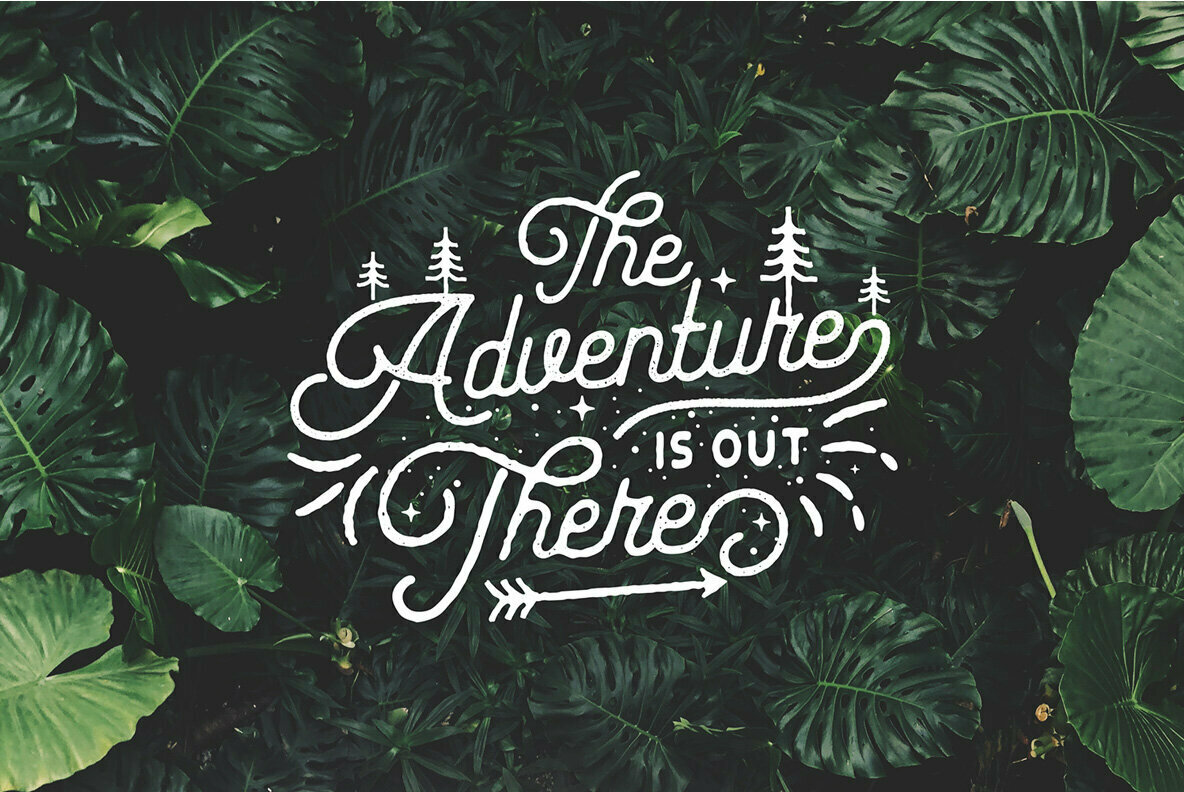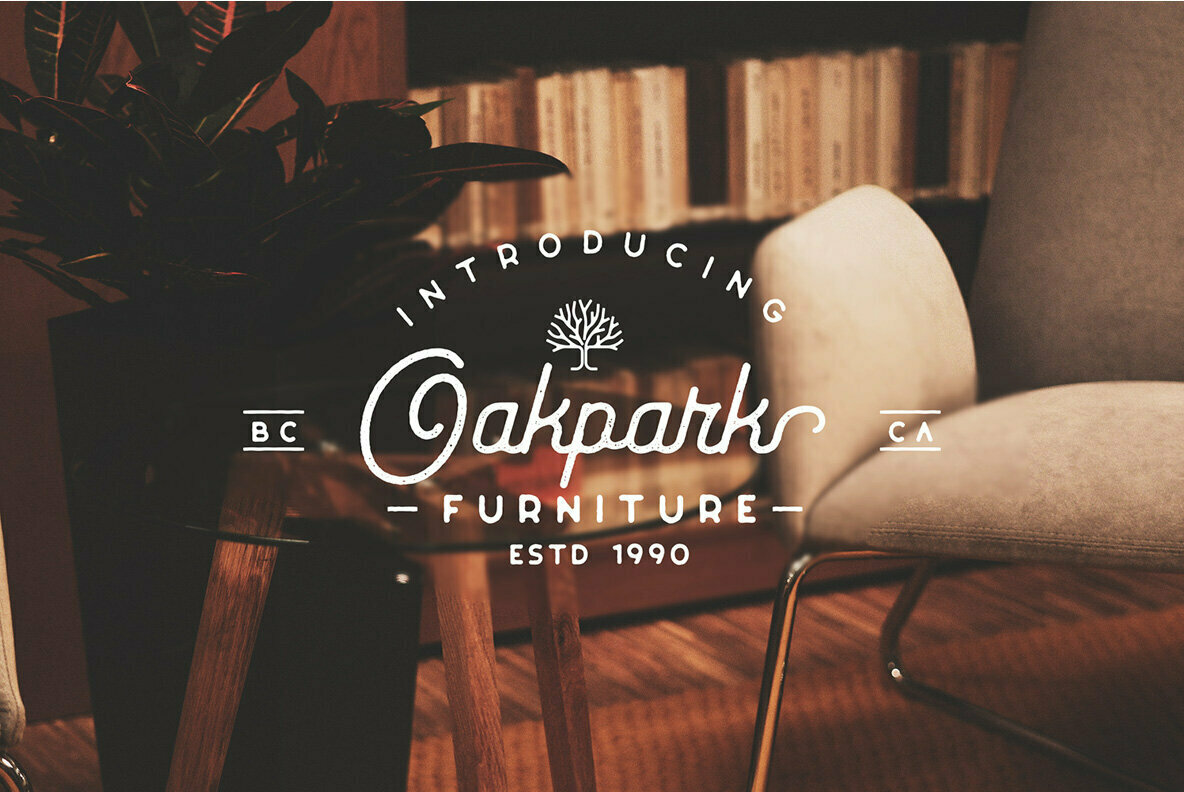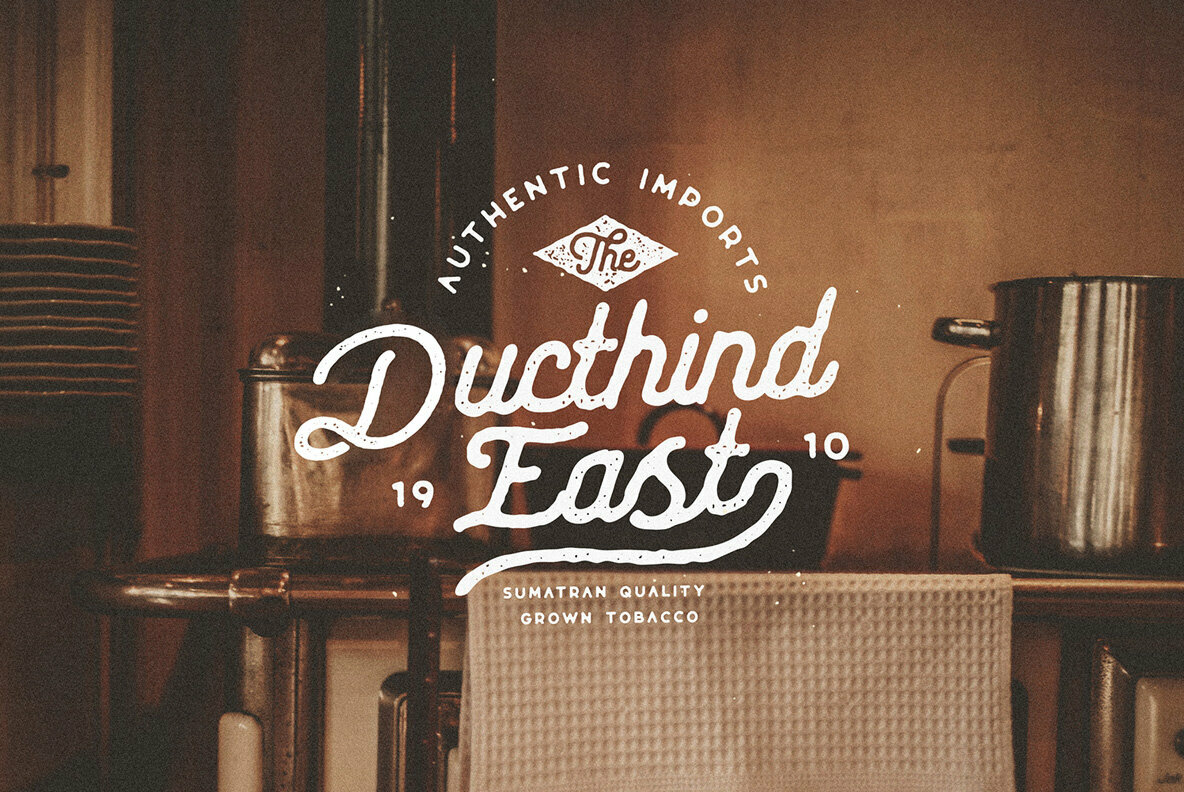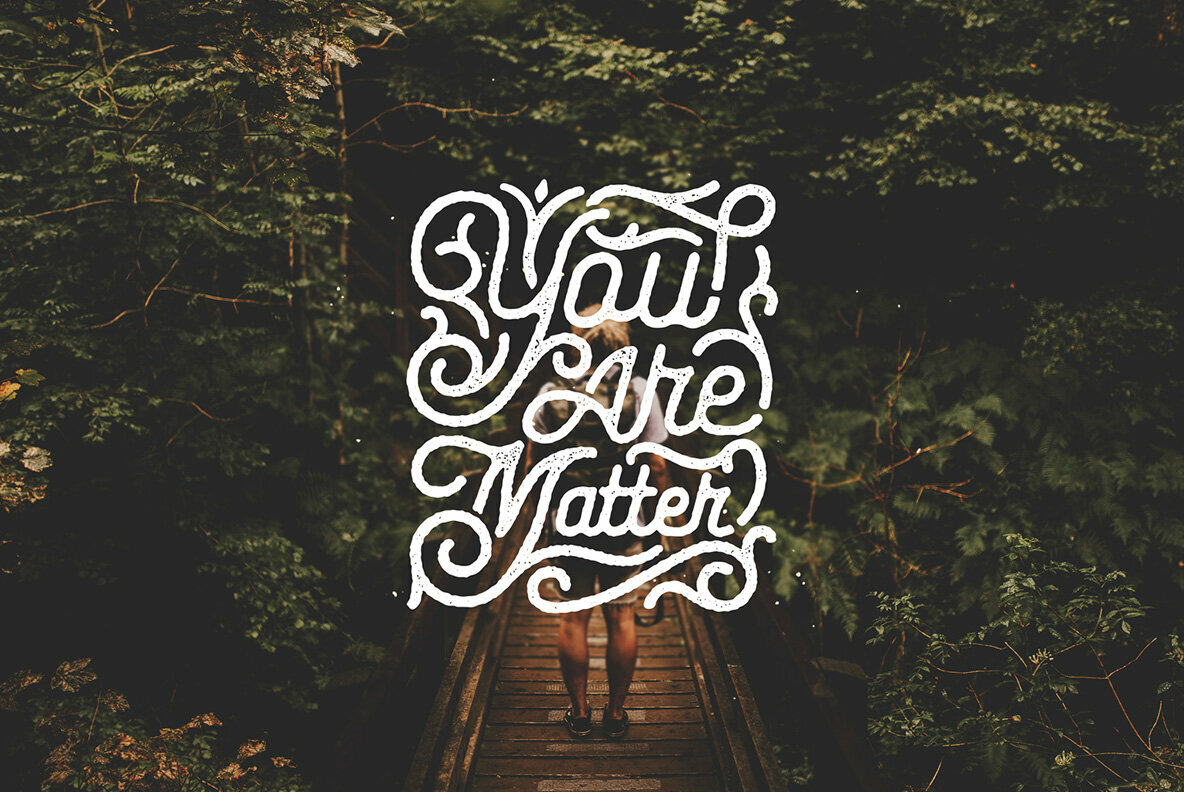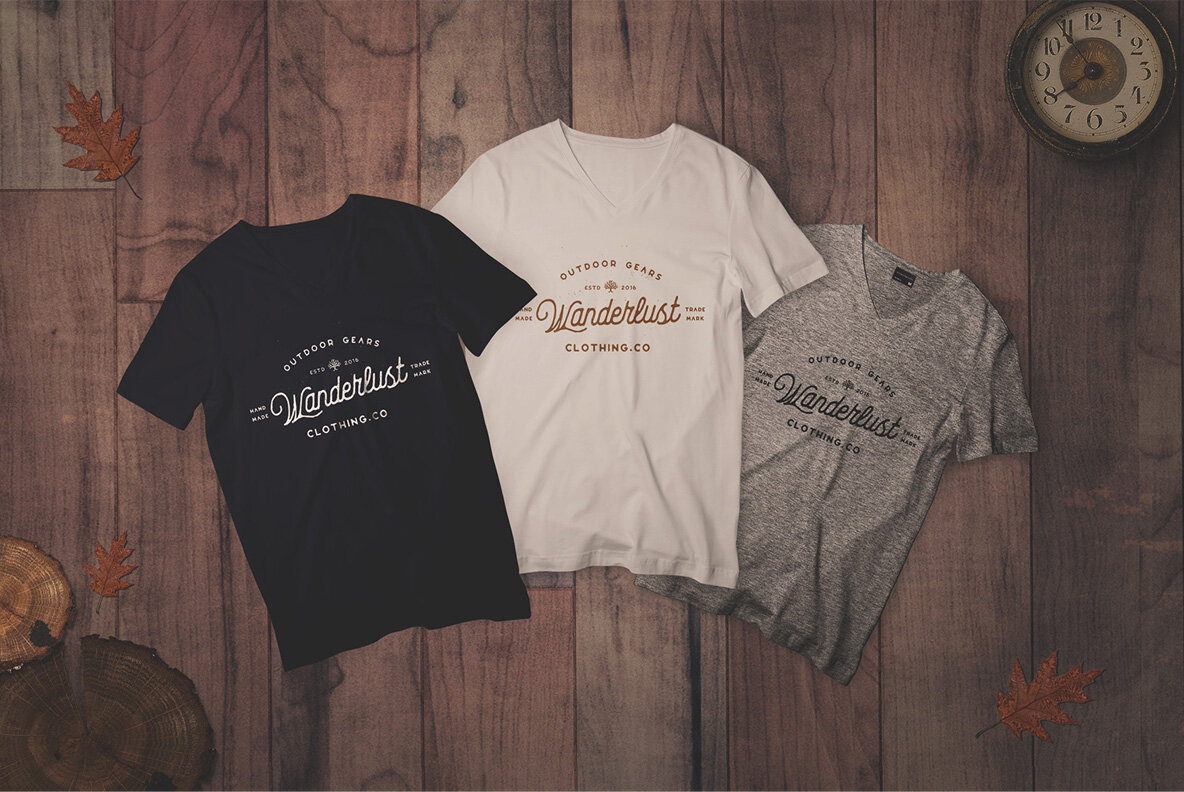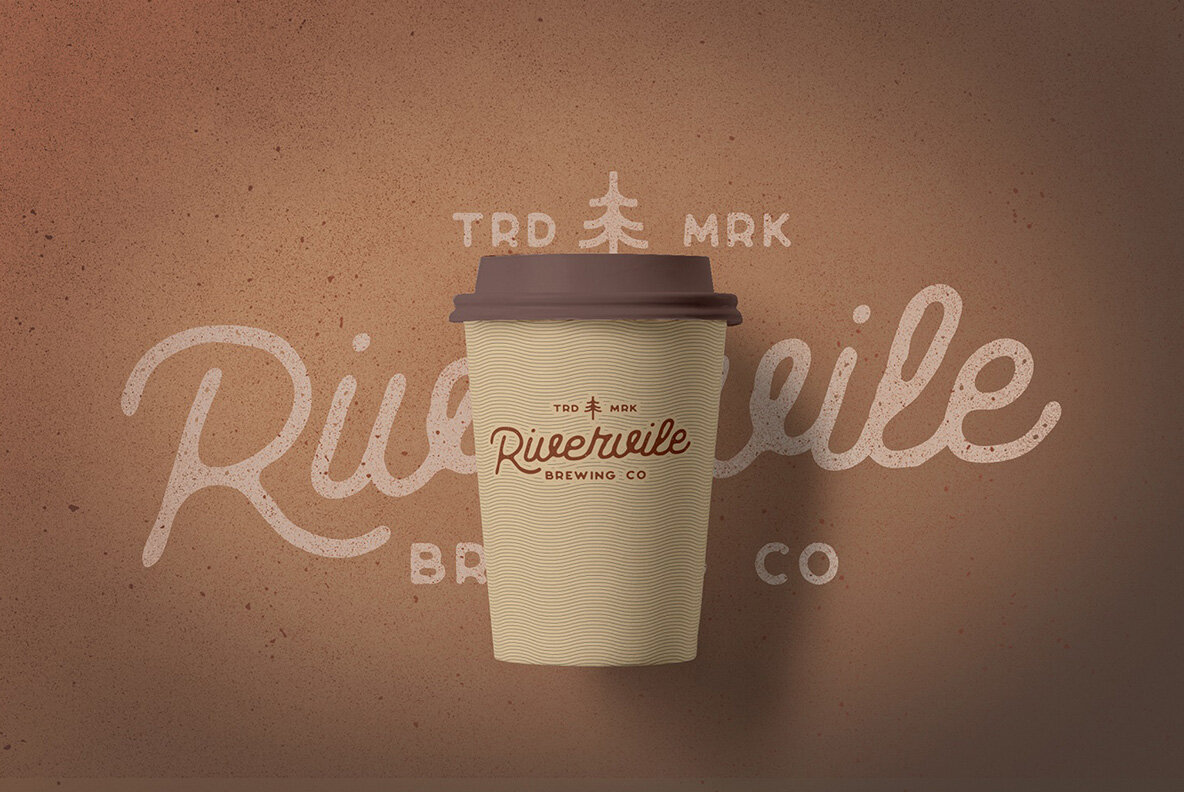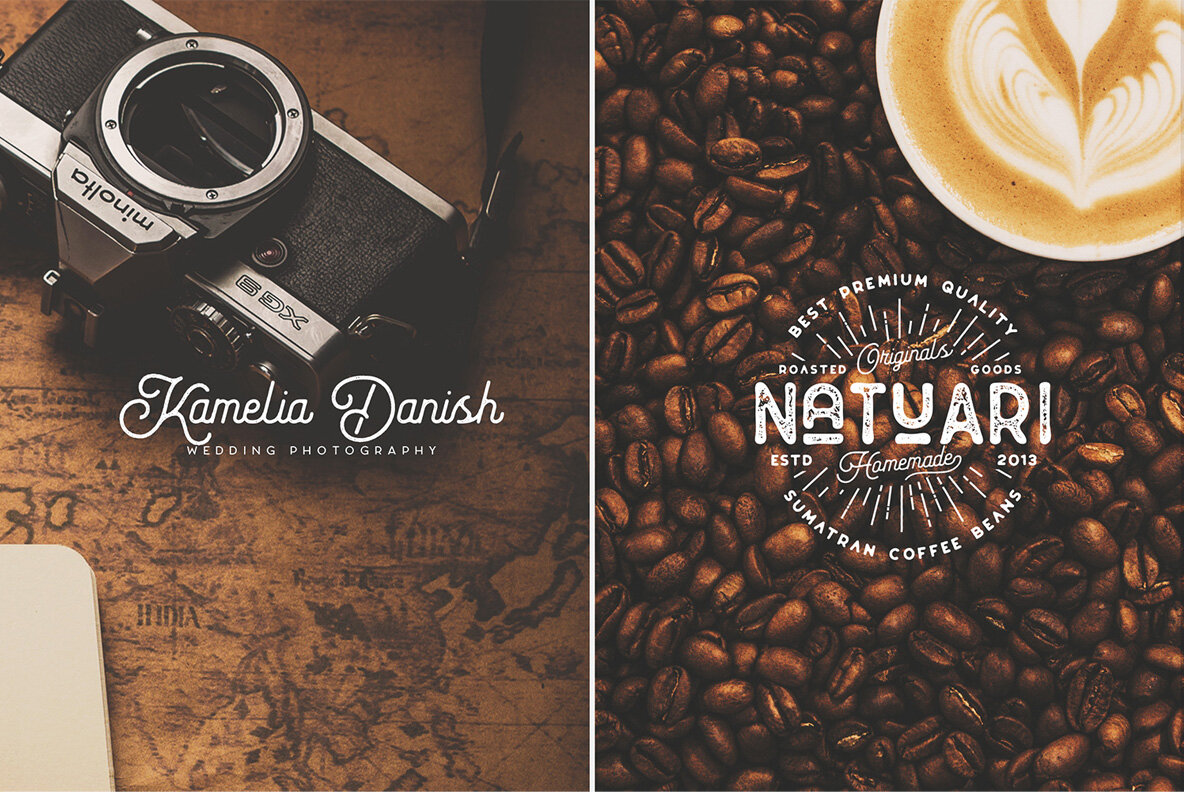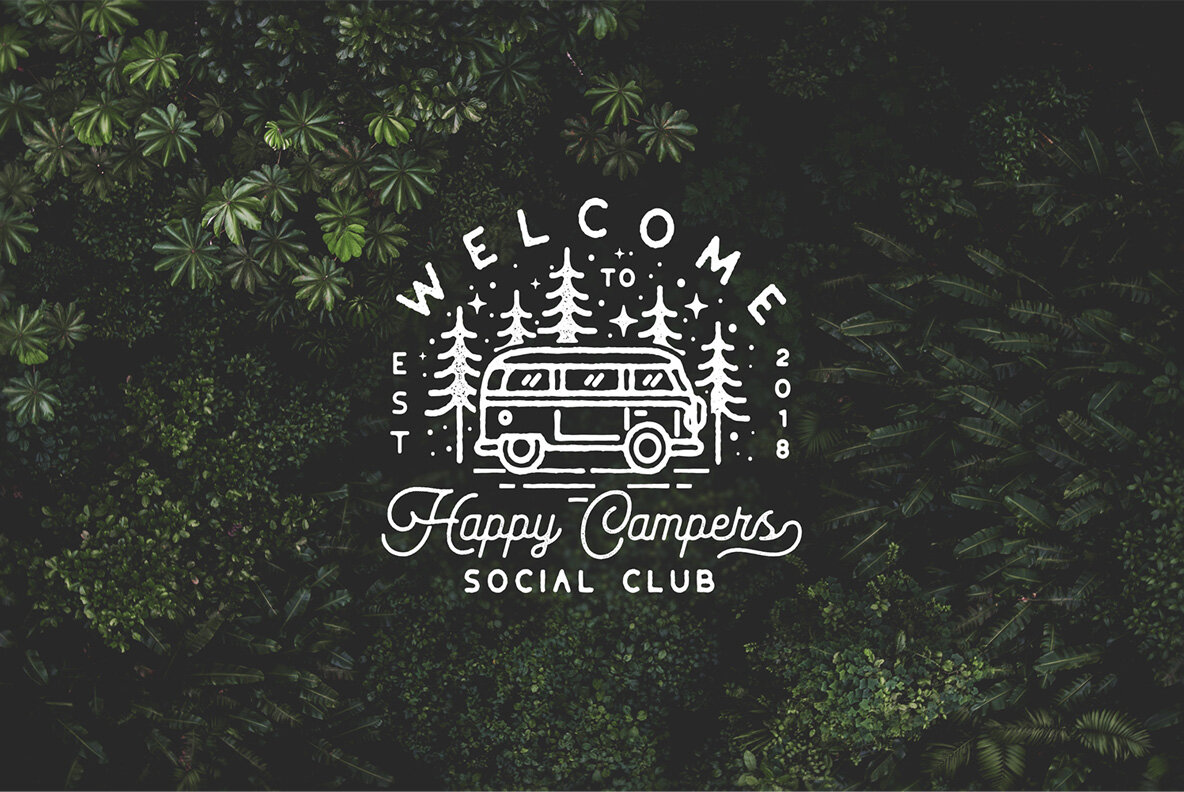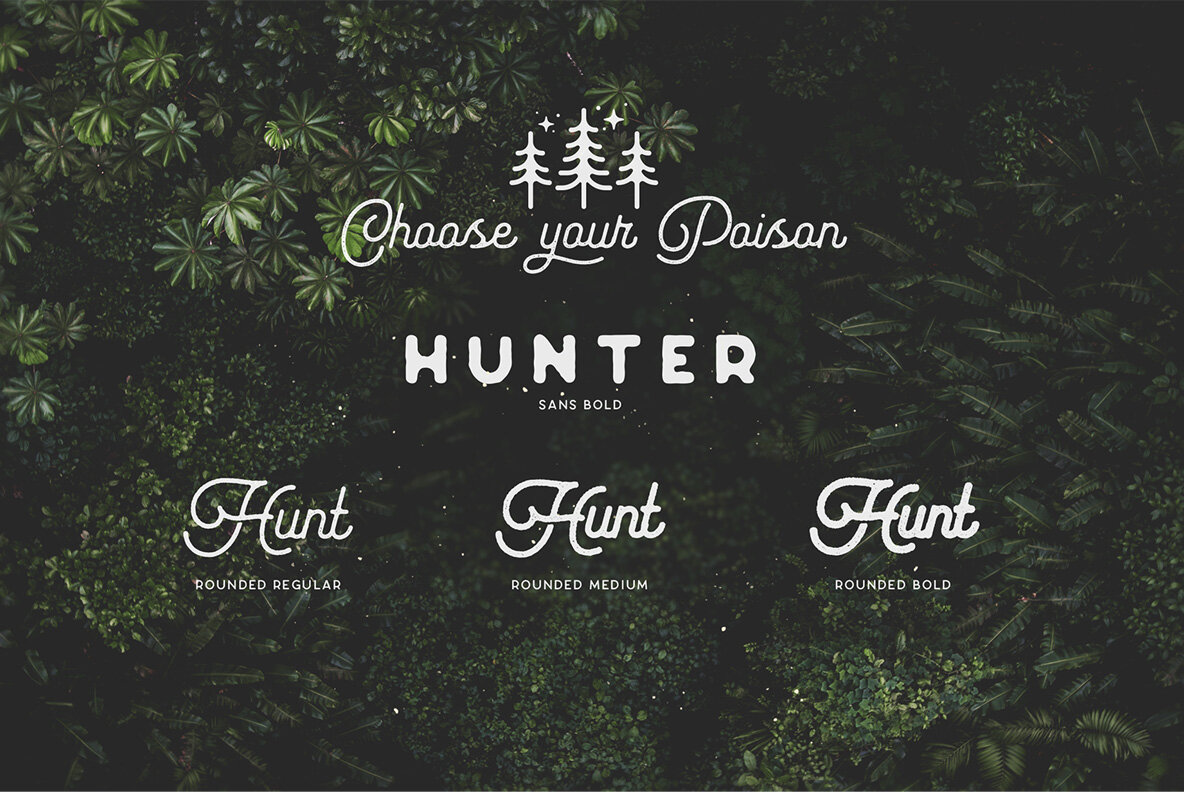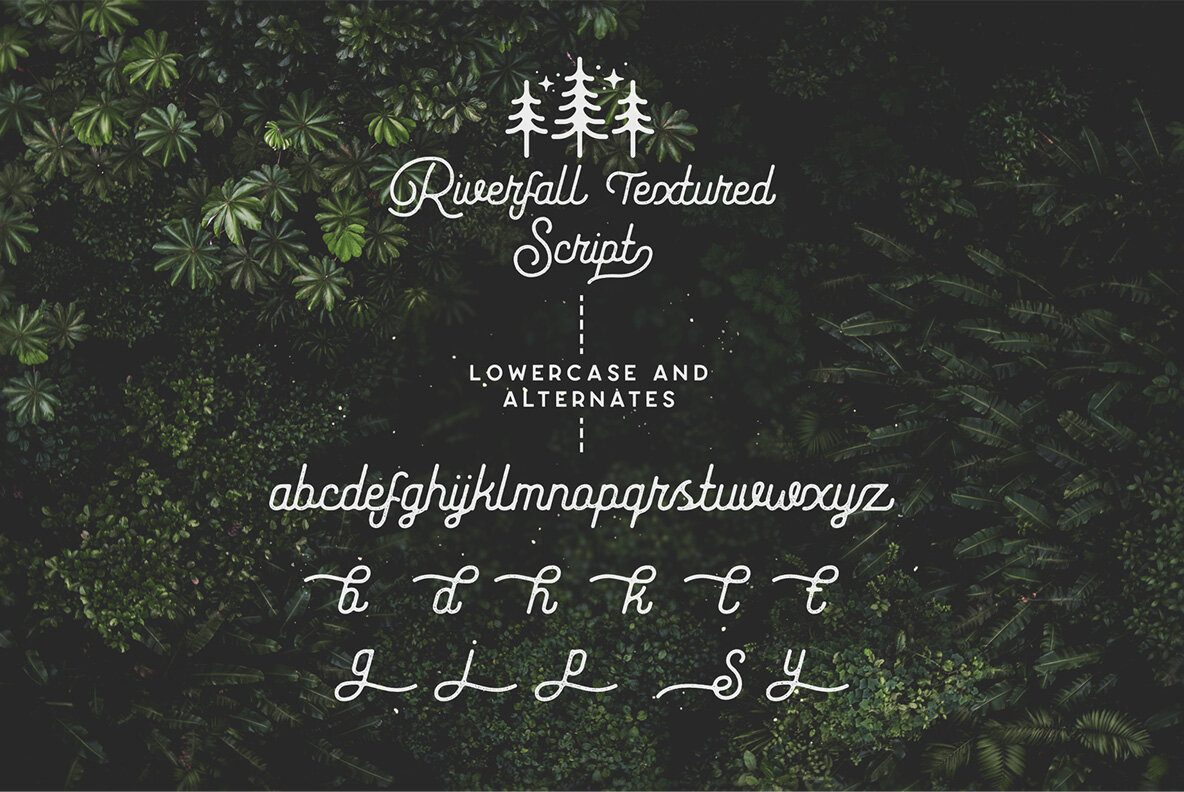
Riverfall Rounded Textured Font
Riverfall Rounded Textured
Riverfall Rounded Textured Medium
Riverfall Rounded Textured Bold
Riverfall Textured Sans Bold
The Riverfall Rounded Textured is vintage Script and sans serif font with 4 with 2 different style ‘script and sans. Also with beautiful alternates, Swashes. Perfect fair of sans and script font for retro vintage styles. Made carefully to create perfect suitable for each of your projects, great for Logotype, Branding Design, Logo Design, Digital Lettering Arts, T-Shirt/Apparel, Poster, Magazine, Signs, Advertising Design, and any vintage design needs.
- 4 Weight font and Styles
- Script Rounded Regular, Medium, Bold, Sans Bold
- Uppercase,numeral,punctuation & Symbol
- Stylistic Alternates, and swashes